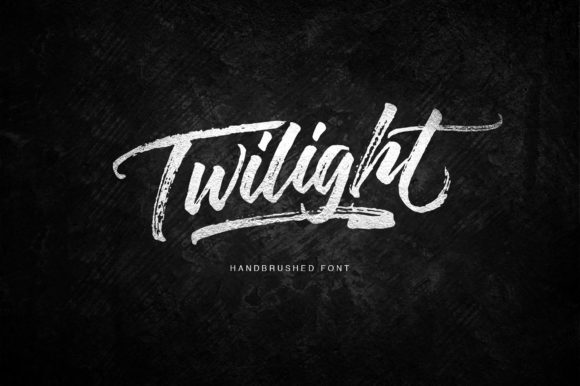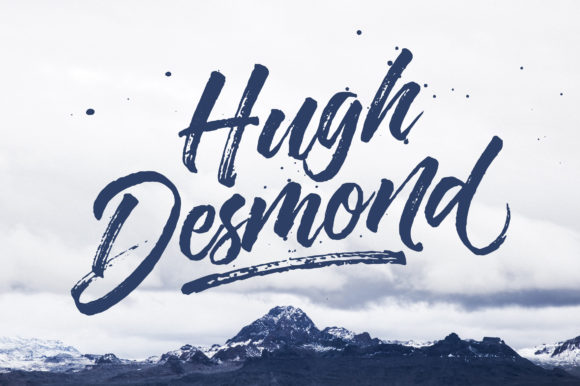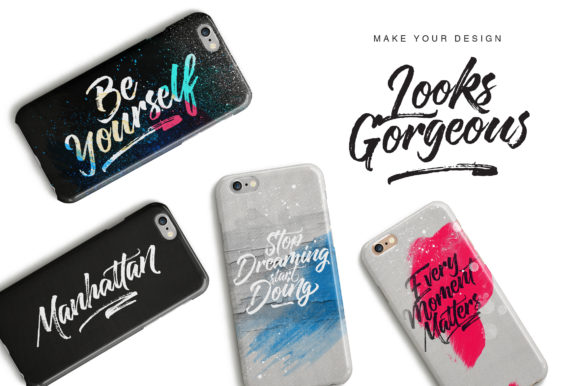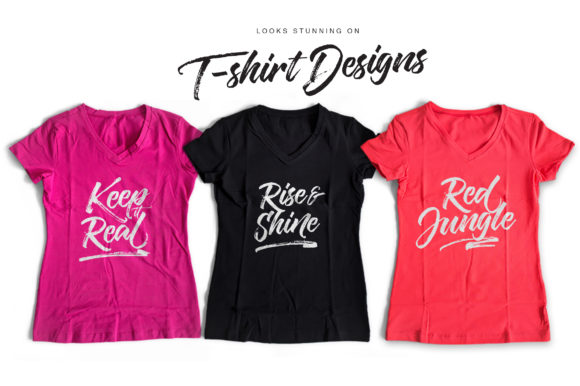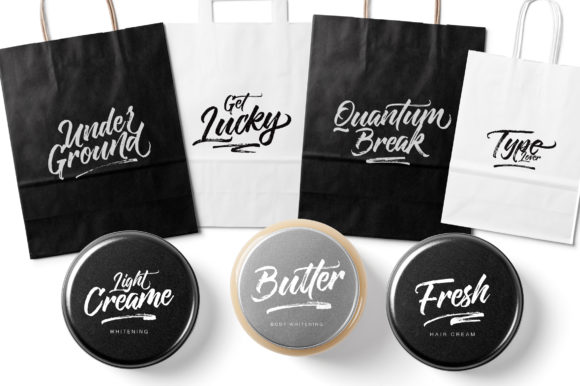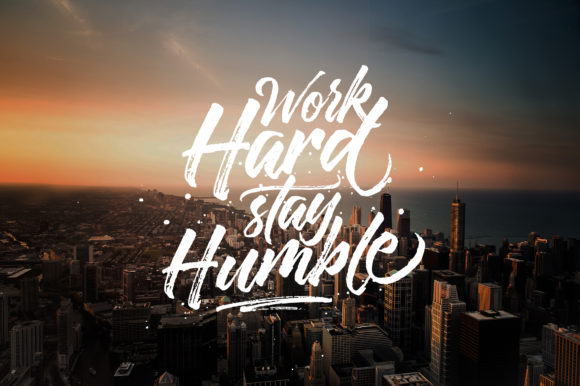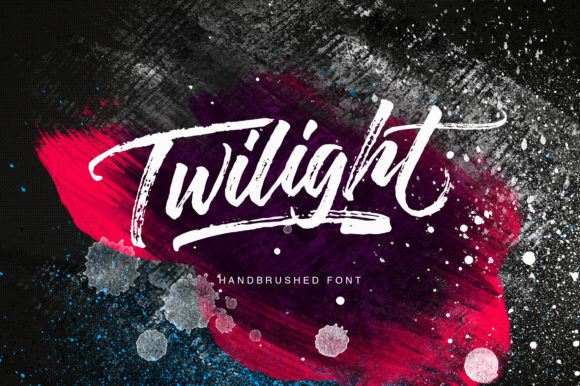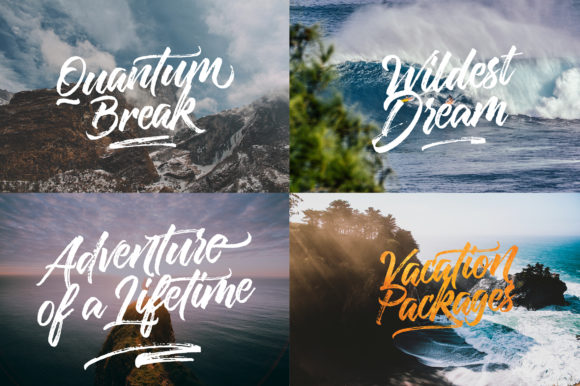
HomeScript FontsTwilight Font Script Fonts Twilight Font FacebookXPinterestWhatsApp Twilight Font Poster 2 Twilight Font Poster 3 Twilight Font Poster 4 Twilight Font Poster 5 Twilight Font Poster 6 Twilight Font Poster 7 Twilight Font Poster 8 Twilight Font Poster 9 About Twilight Font Twilight is a dry handbrushed font with a distinct charm. Use it to turn any design project into a true standout! DOWNLOAD ON CREATIVE FABRICAThis font is sold and delivered by Creative Fabrica. Font Canyon may earn a commission if you buy through this link. People also explored Candy Homes Font Forges Font Oakleigh Khalani Font Butter Flies Font Rollasa Alayni Font Nila Ambar Font Marcelote Font Anemone Font Belvir Font 296 0 TagsTwilight Font Previous articleLady Pink FontNext articleThunder Stone Font LEAVE A REPLY Cancel reply Comment: Please enter your comment! Name:* Please enter your name here Email:* You have entered an incorrect email address! Please enter your email address here Website: Save my name, email, and website in this browser for the next time I comment. Personal Use Free Single Sleeve Personal Use Free Read more about this font BD Spinner Personal Use Free Read more about this font Royal Bengal Tiger Personal Use Free Read more about this font Nickainley Personal Use Free Read more about this font BLOG Free Fonts Risk: Why Free Fonts Can Be Dangerous for Designers Free Fonts Risk: Why Free Fonts Can Be Dangerous for Designers Using free fonts is a common practice in web and graphic design. However, the... How to Cut Any Font on Cricut: Convert a Font to SVG (Free) Top 7 Google Fonts Alternatives for Faster and Privacy-Friendly Web Design (2025) The 10 Best Handwriting Fonts to Add Personality to Your Designs